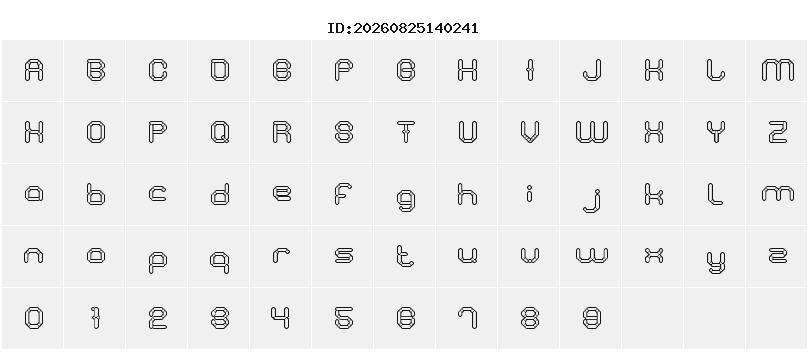
• Font Name: STONE ROCK
• Full Font Name: STONE ROCK
About STONE ROCK.ttf
STONE ROCK.ttf is a modern, elegant sans-serif font designed for ultimate readability and visual harmony. Perfect for branding, headlines, web design, and print materials.